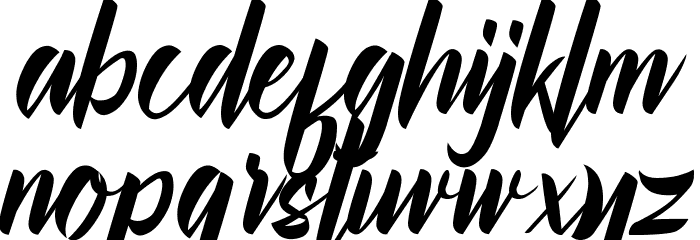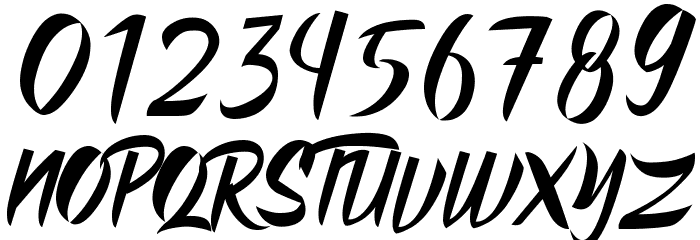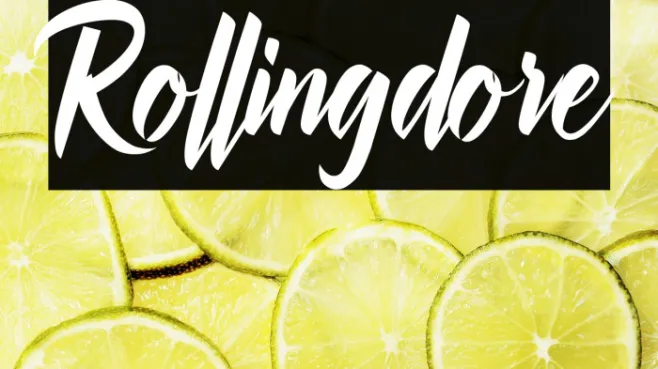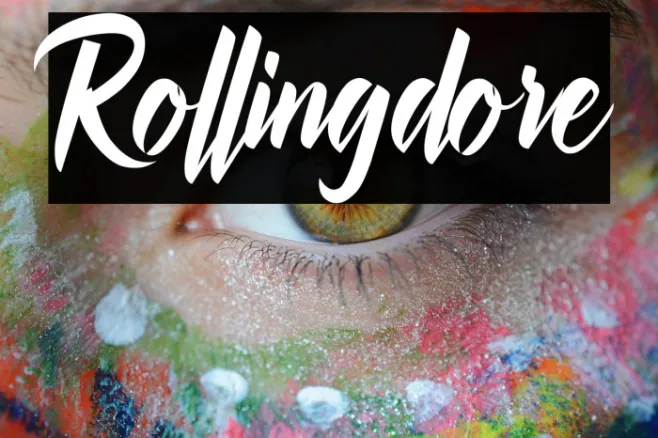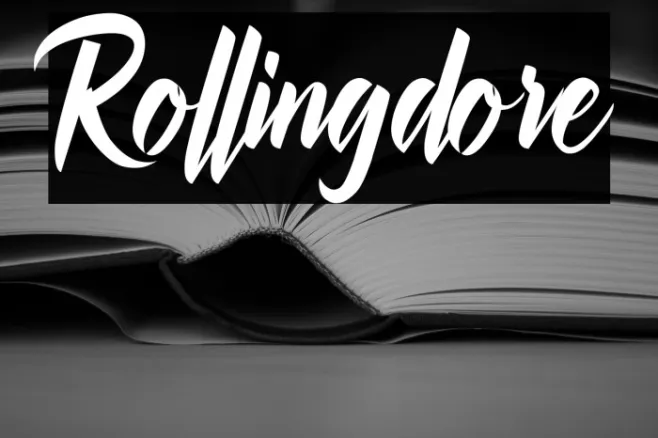
Rollingdore Font
This font exhibits a bold and dynamic script style, characterized by its fluid and energetic strokes. The letters are designed with a sense of motion, featuring sharp angles and smooth curves that create a sense of rhythm and flow. The uppercase letters are particularly striking, with a strong presence and a slightly condensed form that enhances their impact. The lowercase letters maintain the same dynamic quality, with a slightly more relaxed and informal appearance. The numerals are consistent with the overall style, offering a cohesive look across all characters. This font is well-suited for projects that require a sense of movement and energy, such as branding, advertising, and creative design work.
A bold, dynamic script font with fluid strokes and a sense of motion.
- Proposed Projects: Ideal for branding, advertising, creative design, and projects needing energetic typography.
- Category: Script
- Character Spacing: Tight
- Use Case: Logos, Headlines, Creative design